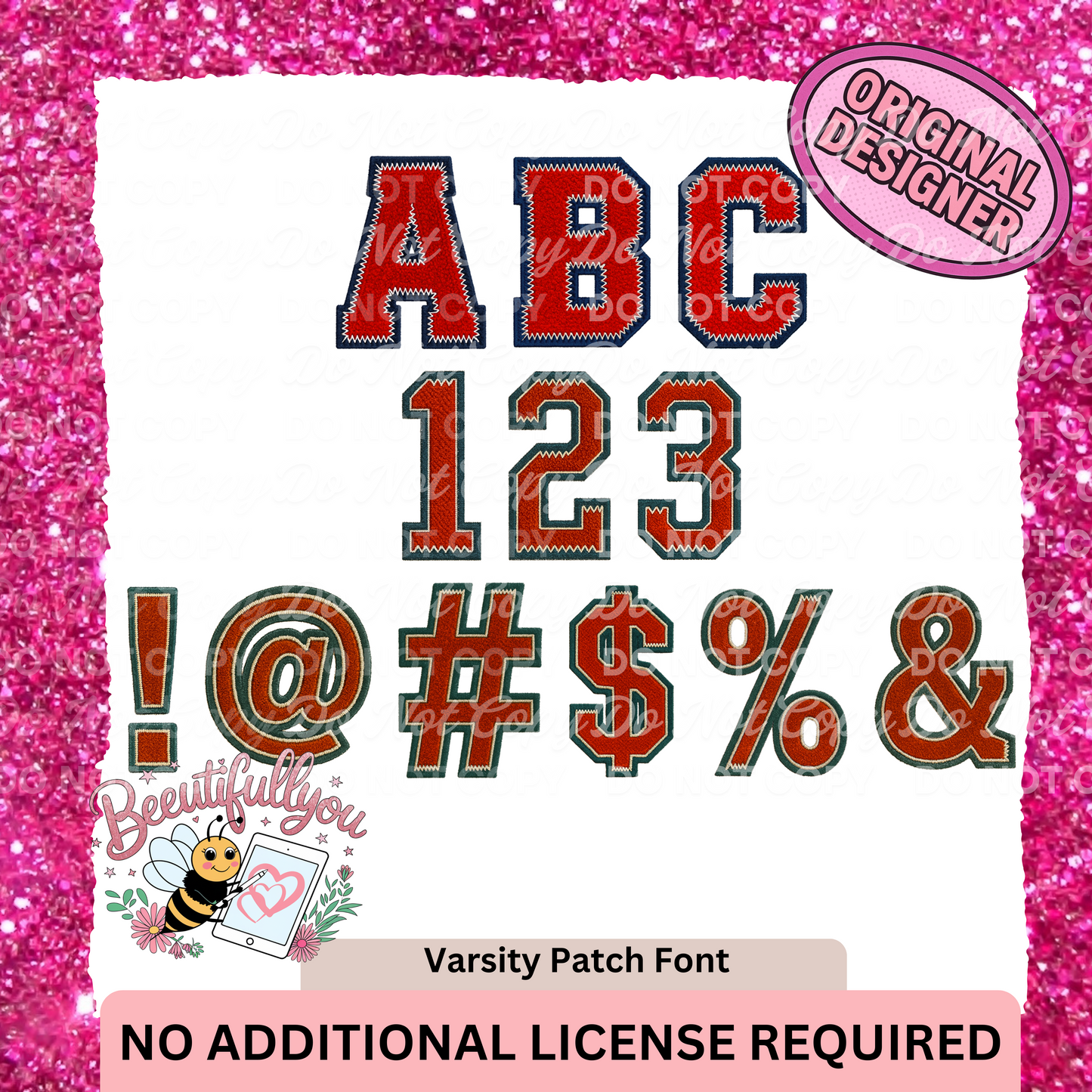
Add bold, retro varsity vibes to your designs with this Varsity Patch Font from BeeUTiFullYou! This fully installable OTF font file is perfect for team shirts, spirit wear, sports merch, school pride projects, and so much more. Includes all uppercase letters, numbers, and symbols with that classic stitched-patch look.
✔️ A–Z uppercase letters
✔️ 0–9 numbers
✔️ Symbols: ! @ # $ % &
🎨 Style:
Chunky varsity-style with detailed faux stitching and patchwork texture. Perfect for standout slogans, names, and numbers.